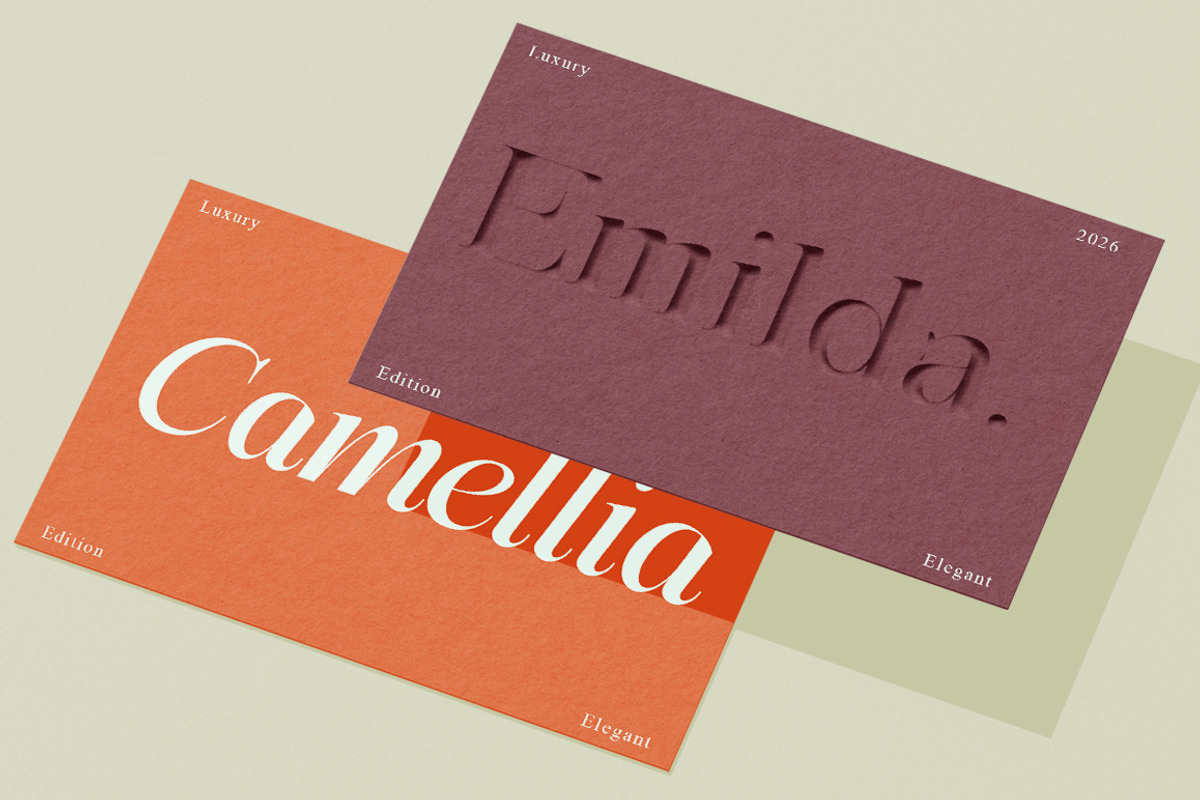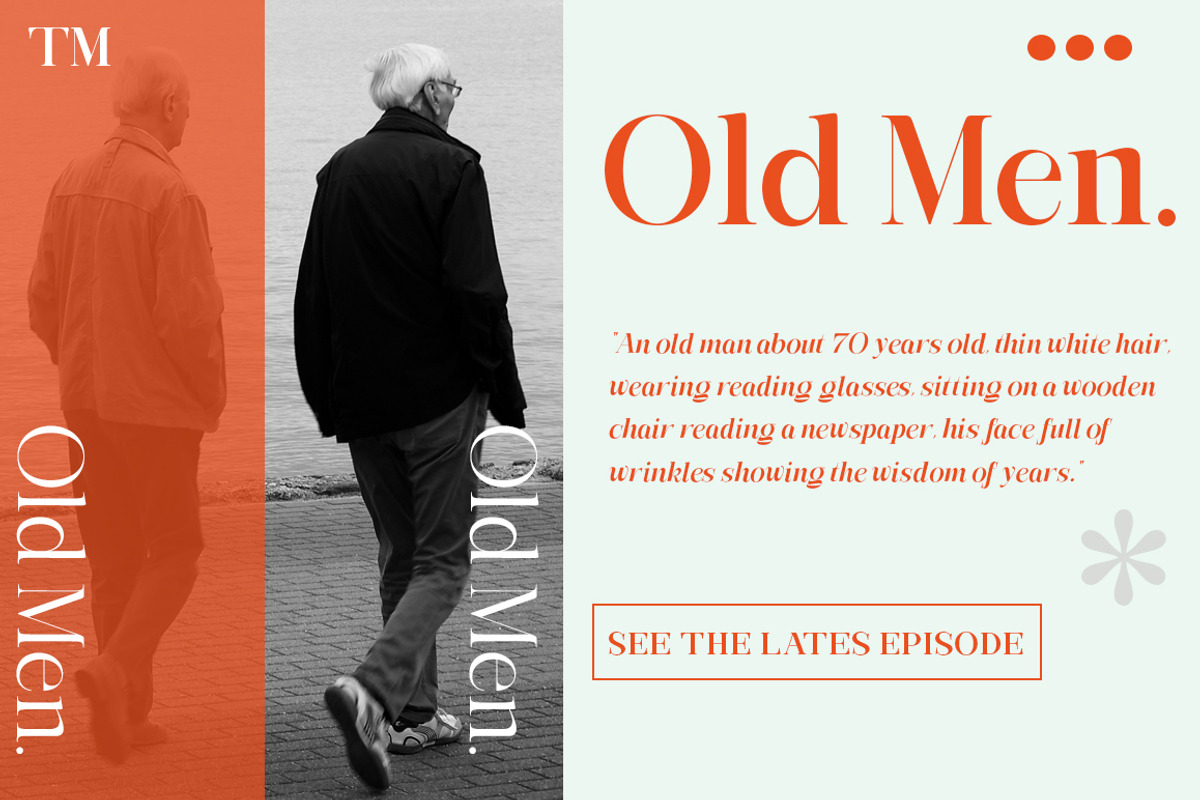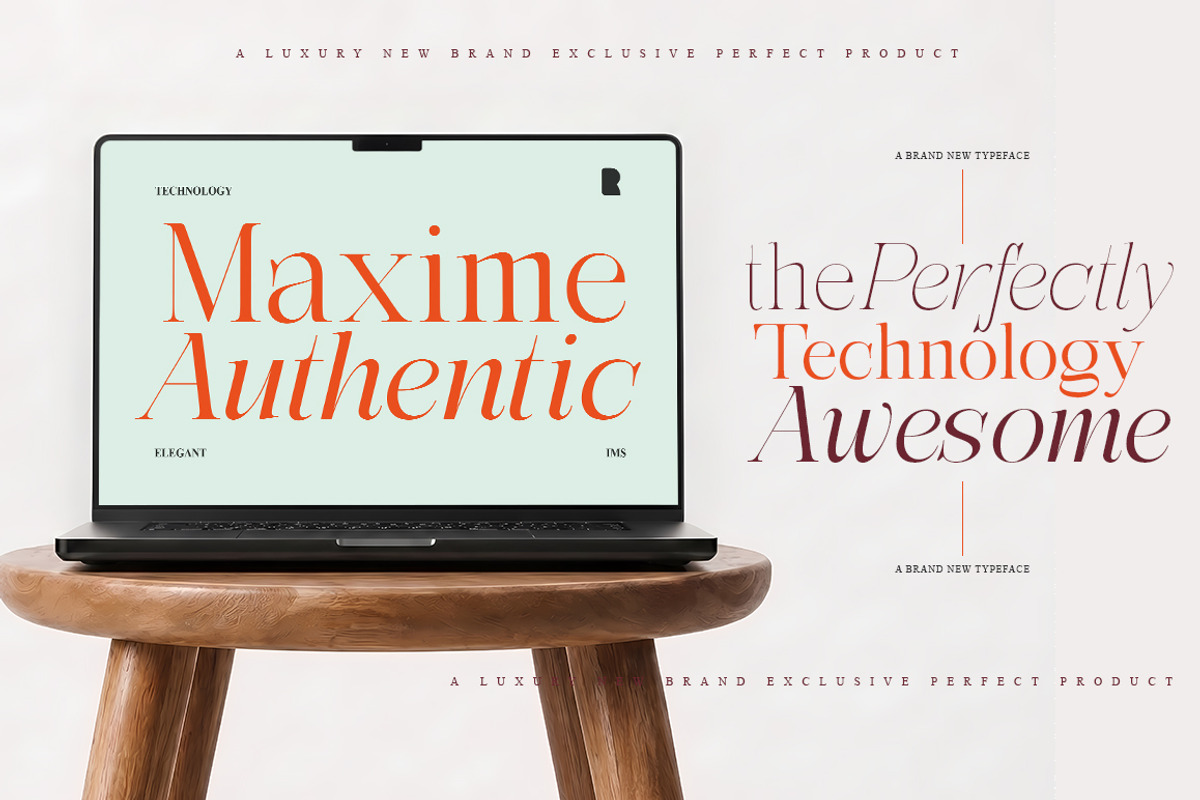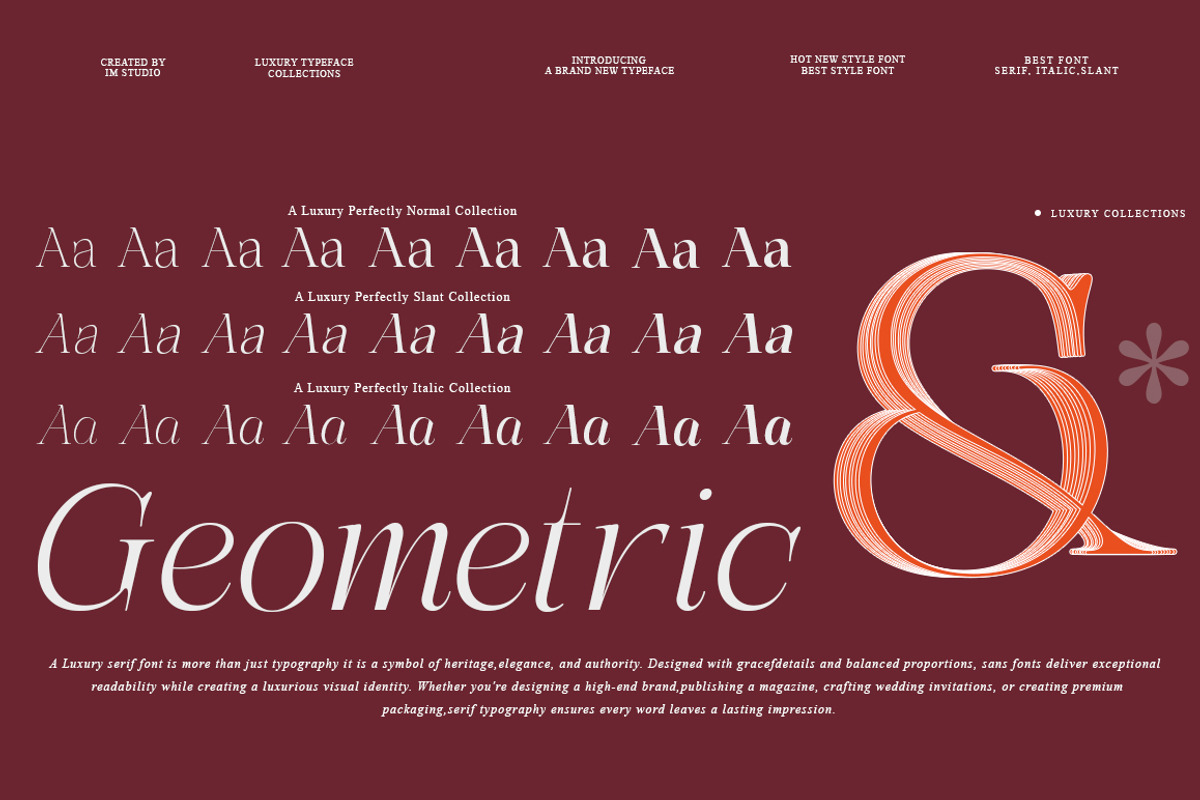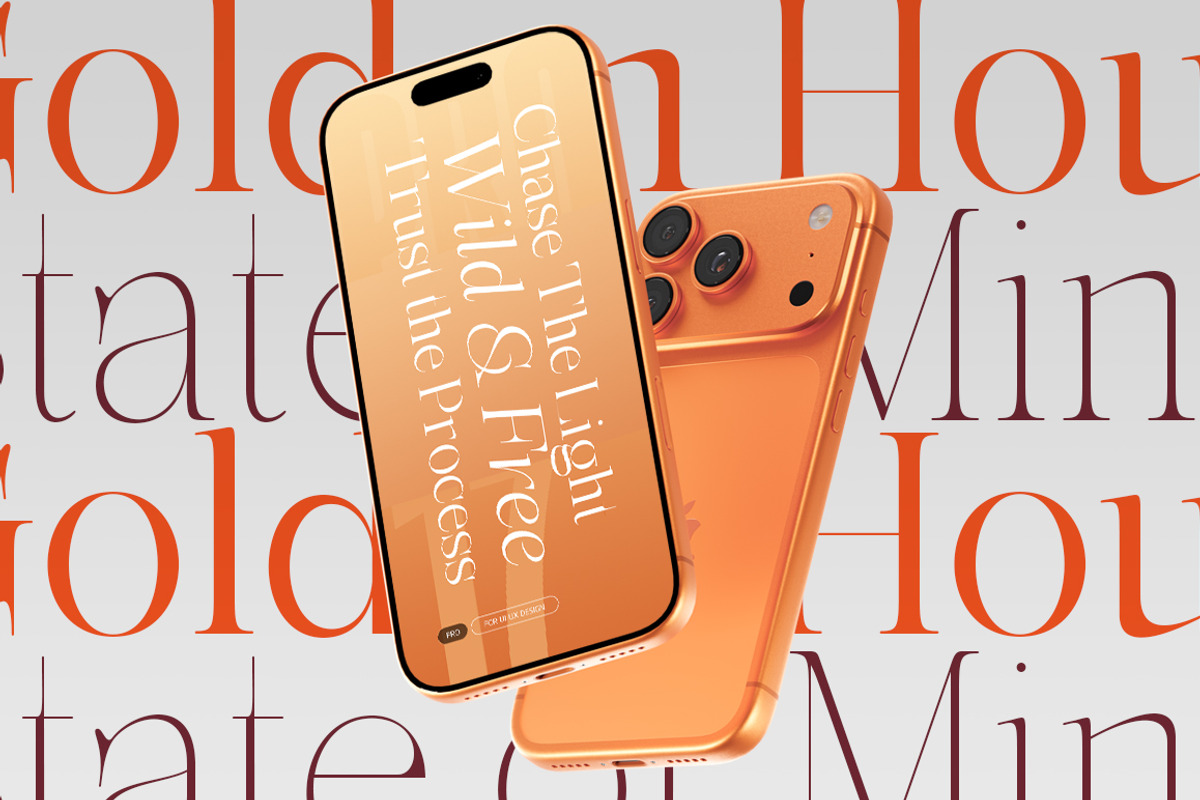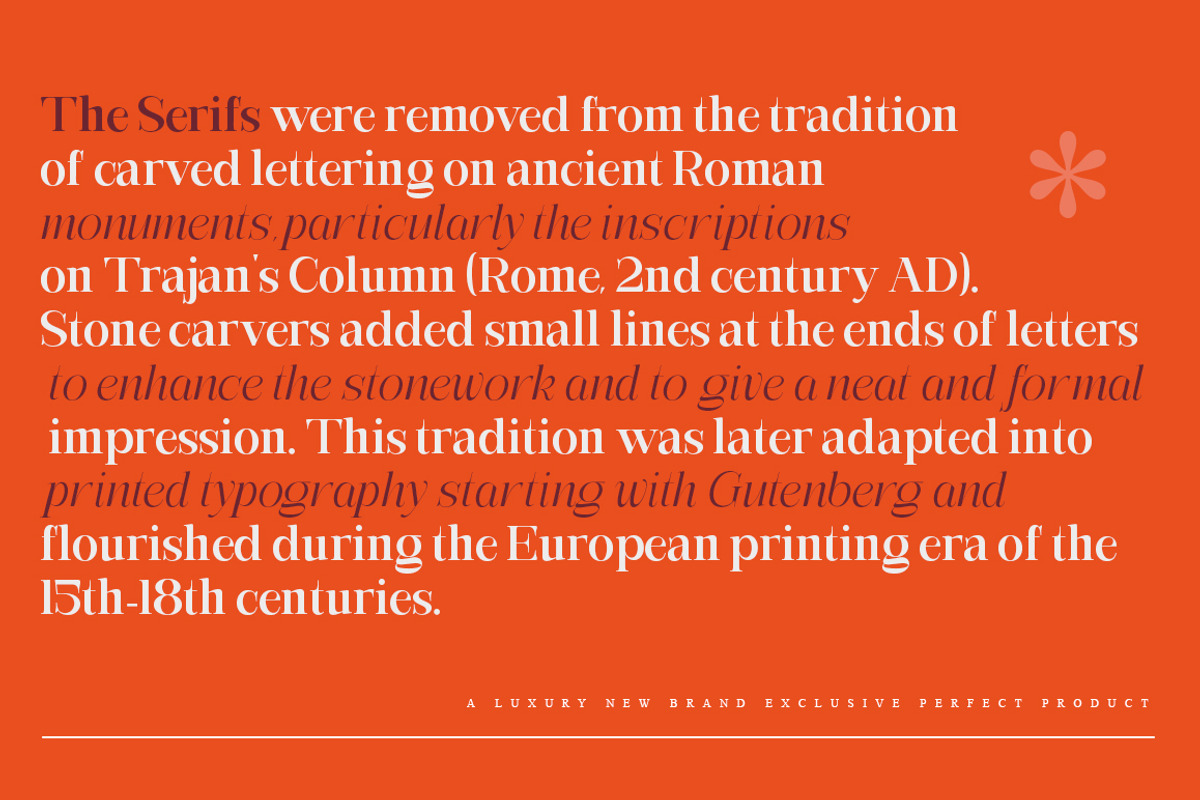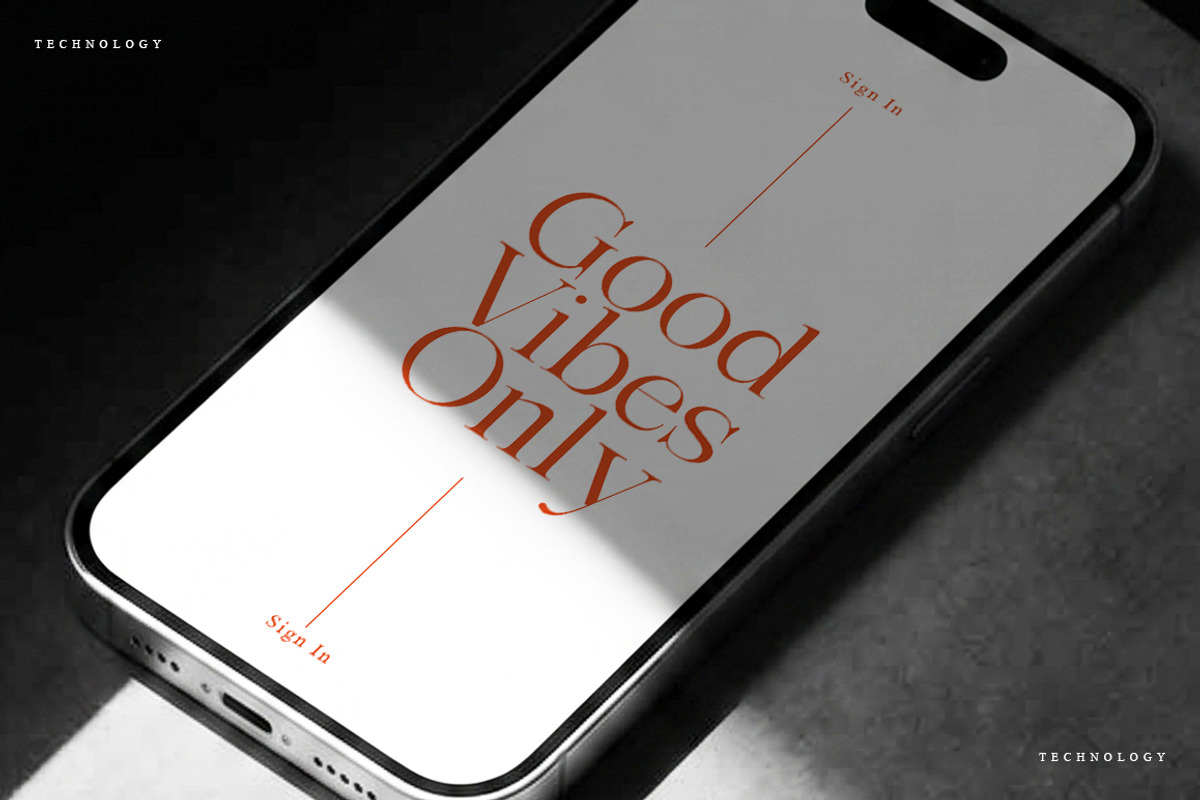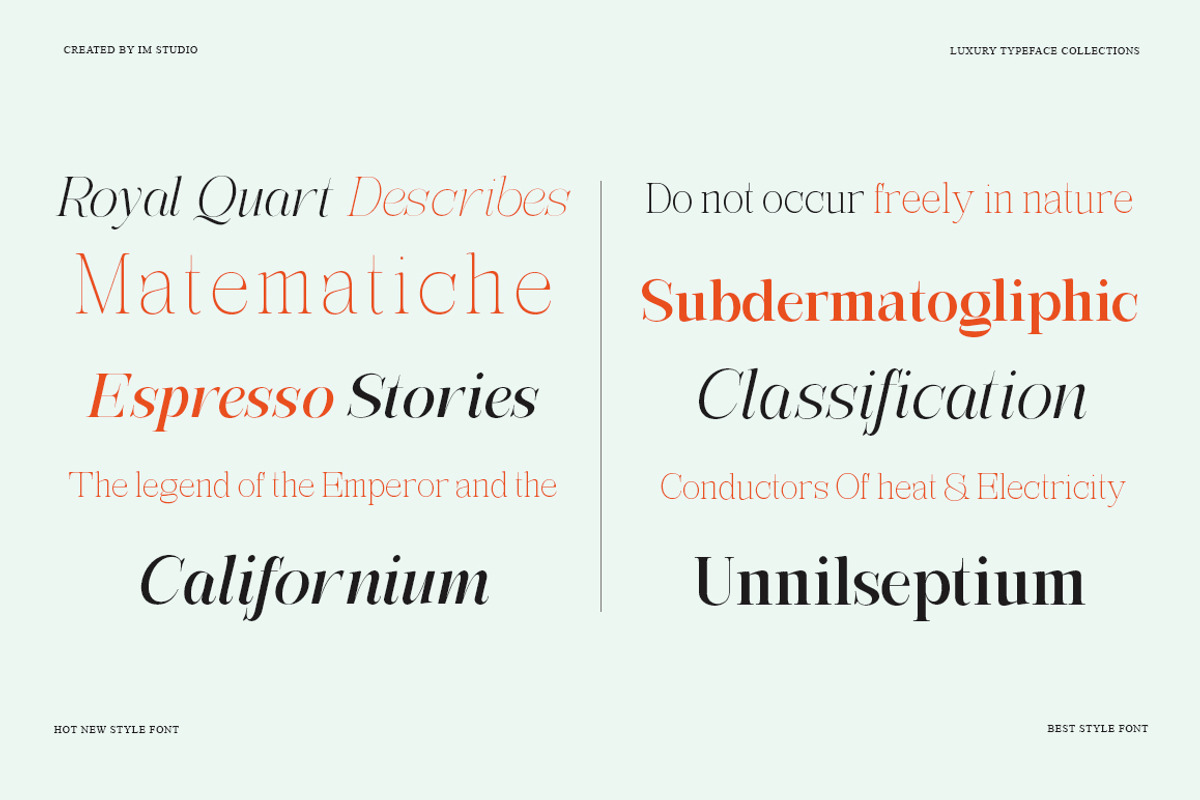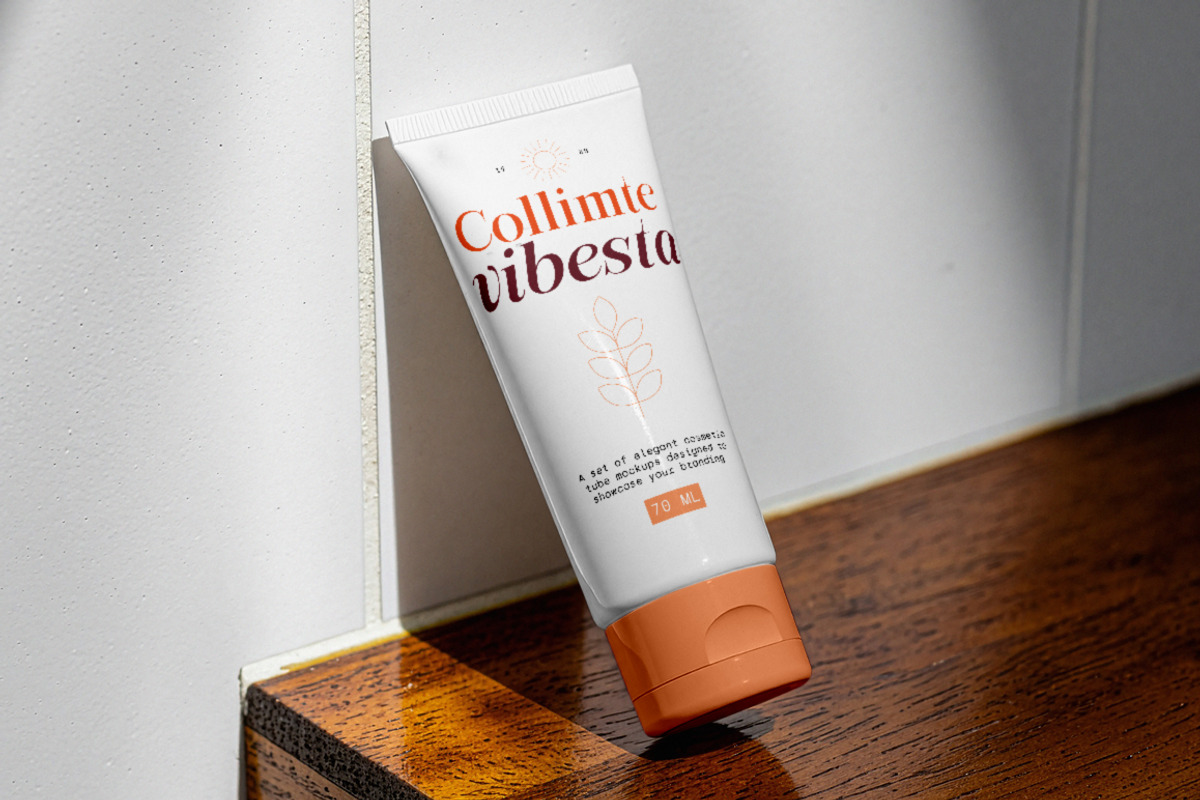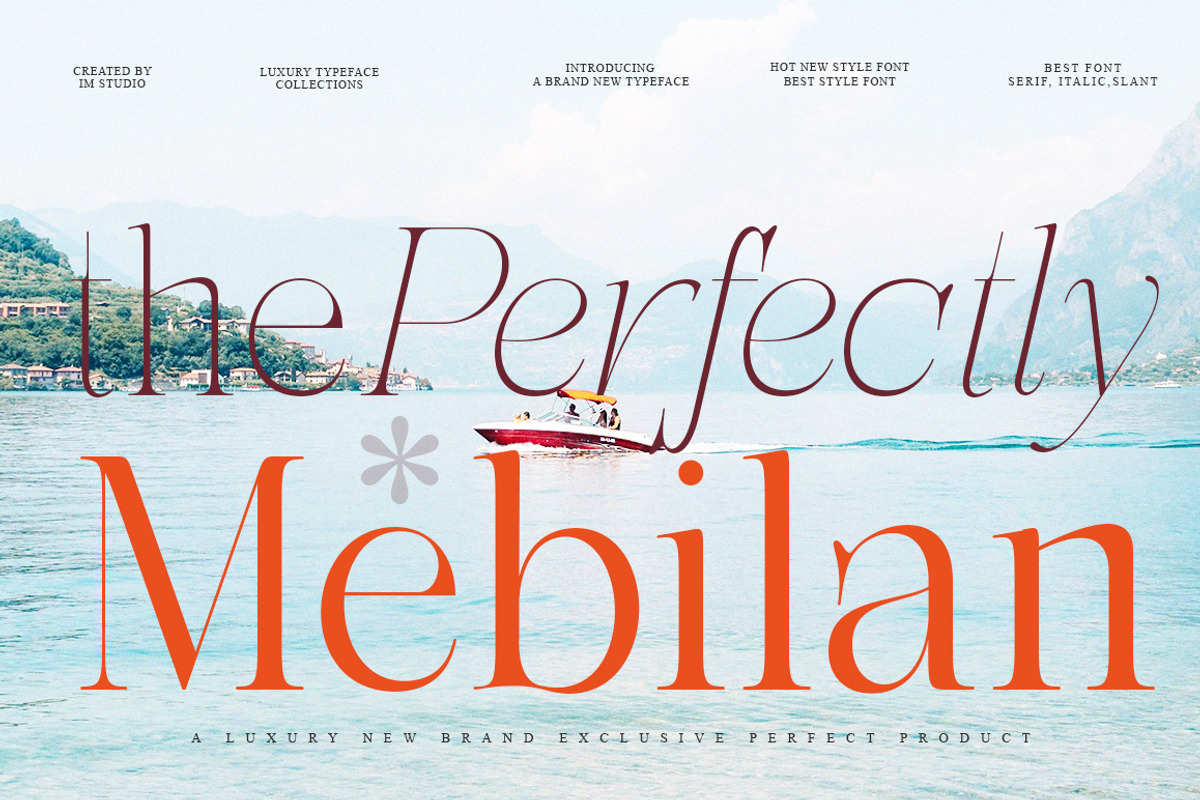
Mebilan
Font Mebilan | 243 Font Styles
Timeless Luxury. Modern Precision. Endless Creativity.
Introducing Mebilan, a premium font superfamily featuring 243 professionally crafted font styles that combine the sophistication of classic serif typography with the clean versatility of modern sans serif and the expressive beauty of true italics.
Designed for creative professionals who demand elegance without compromise, Mebilan delivers exceptional flexibility across branding, editorial, packaging, advertising, web design, and luxury visual identities. Every letterform has been carefully refined with balanced proportions, graceful curves, and high-contrast details to create typography that feels both timeless and contemporary.
Whether you're building a premium brand, designing a magazine, creating elegant invitations, or crafting luxury packaging, Mebilan provides the complete typographic system you need.
Why You'll Love Mebilan
243 Complete Font Styles An extensive font family offering remarkable creative freedom. Mix and match multiple weights, widths, and true italic styles to build beautiful visual hierarchies for any project.
Elegant Serif Design Classic proportions combined with contemporary refinement create a luxurious appearance suitable for both traditional and modern layouts.
Professional Sans Serif Companion Clean, minimal, and highly legible styles that perfectly complement the serif collection for versatile design systems.
True Italic Fonts Every italic style has been individually designed—not simply slanted—resulting in natural rhythm, elegant movement, and professional typography.
Advanced Typographic Details Unlock refined typography with beautifully crafted ligatures, stylistic alternates, and professional glyph substitutions for unique, polished designs.
Extensive Language Support Supports more than 90 languages, making Mebilan ideal for international branding and multilingual publishing.
Optimized for Print & Digital Sharp, balanced, and highly readable across large headlines, editorial text, websites, mobile interfaces, presentations, and high-resolution printing.